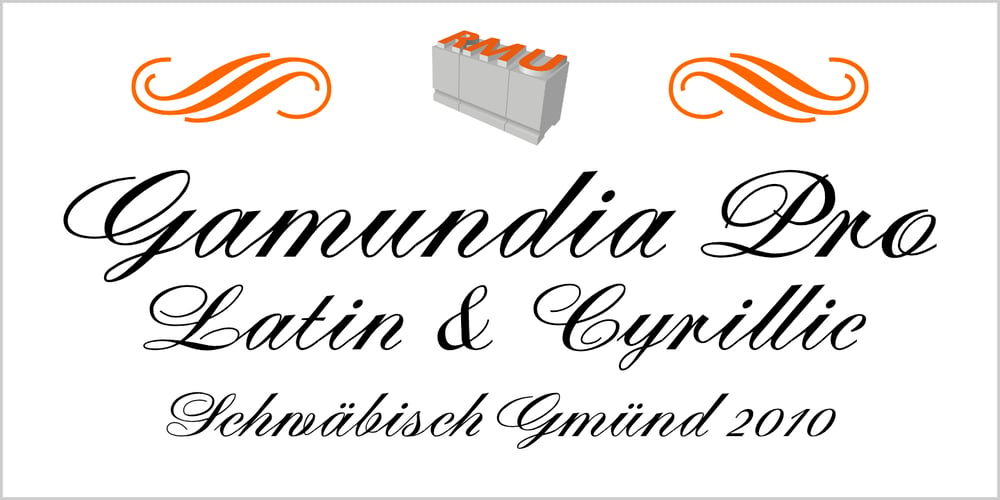
Gamundia Pro Font Family was designed by Ralph M. Unger and published by RMU. Gamundia Pro contains 1 styles and family package options. In 2012 the city of Schwäbisch Gmünd will celebrated its 850th anniversary, and in 2014 it was host town to the State Garden Show of Baden-Württemberg. These both celebrations were the background to create a special font for my home town and give it the town’s ancient name. Inspired by Excoffon’s Diane, I drew and digitized a new, multilingual script font which covers the main European languages written in Latin or Cyrillic letters. For users typing in the Serbian language, I recommend to activate the OT feature Stylistic Alternatives.